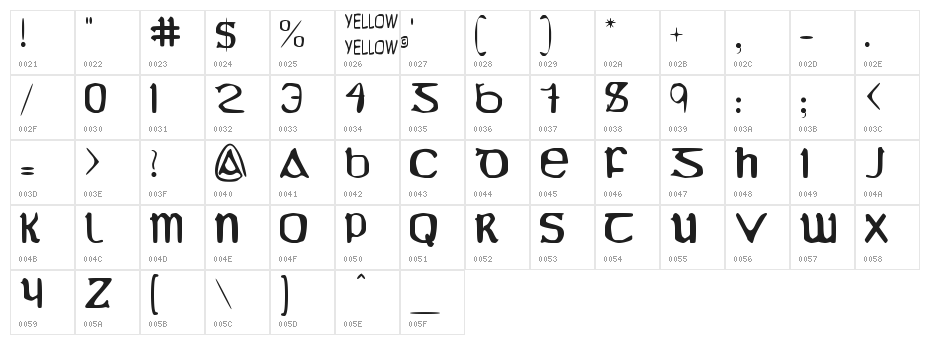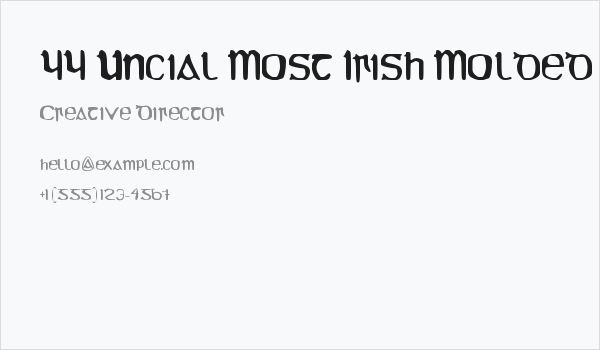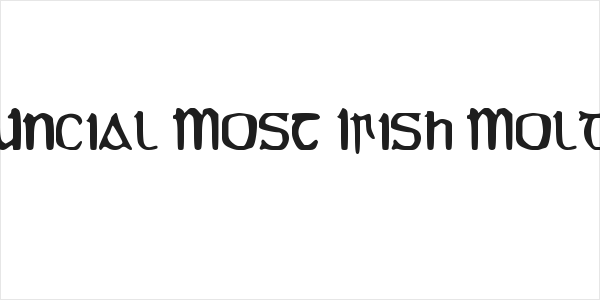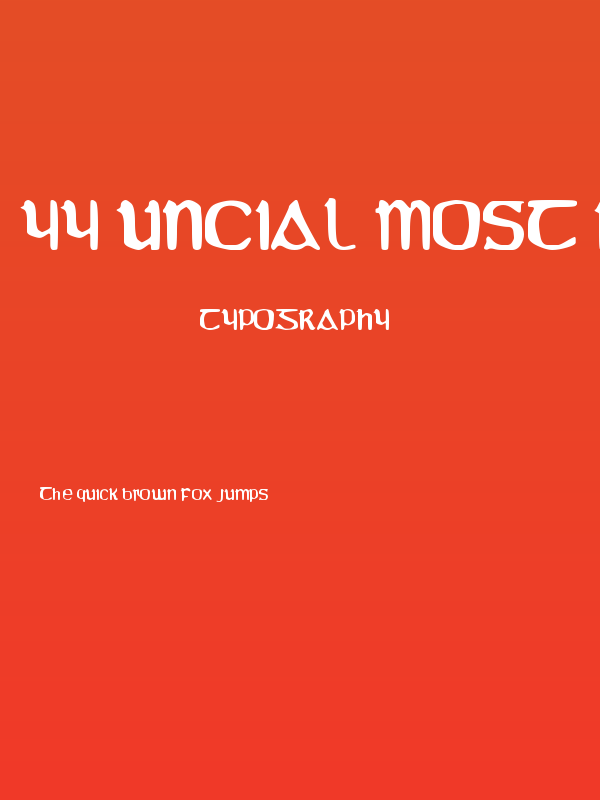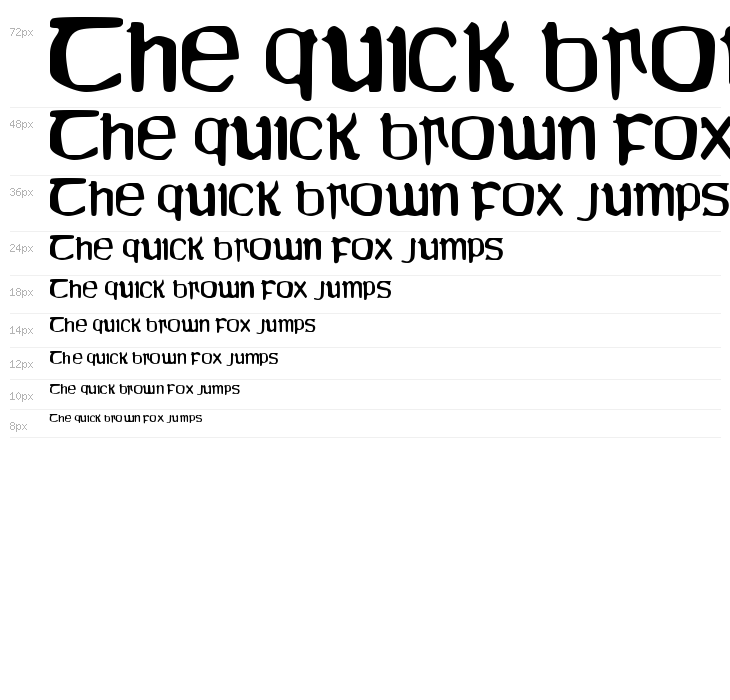
YY Uncial Most Irish Molded Font
YY Uncial Most Irish Molded Description
This font exhibits a distinctively bold and rounded style reminiscent of traditional Irish uncial script. The characters are characterized by their thick strokes and unique, flowing forms that convey a sense of historical elegance. The uppercase and lowercase letters maintain a consistent style, with rounded edges and a slightly condensed form. Numbers and special characters are designed to match the overall aesthetic, featuring similar rounded and bold characteristics. This font's style is both decorative and legible, making it suitable for a variety of creative applications.
| Use Case | Headlines, Logos, Decorative text |
| Proposed Projects | Ideal for projects that require a historical or cultural touch, such as book covers, posters, or themed event invitations. |